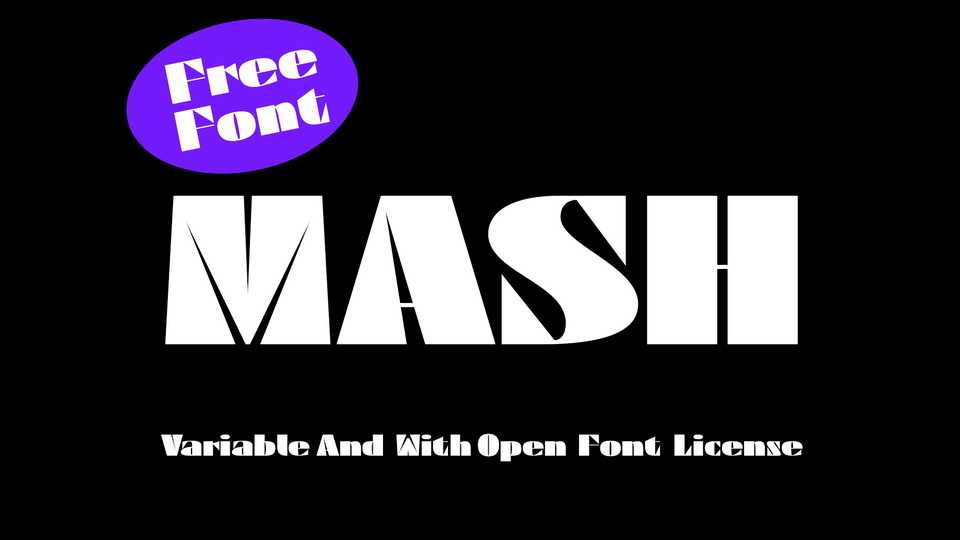
Download Mash font, a variable display typeface that carries a strong and distinctive personality due to its bold shapes and sharp angles. Mash font is perfect to be used primarily on headlines, titles or small texts.
Designer: Leonhard Katschner